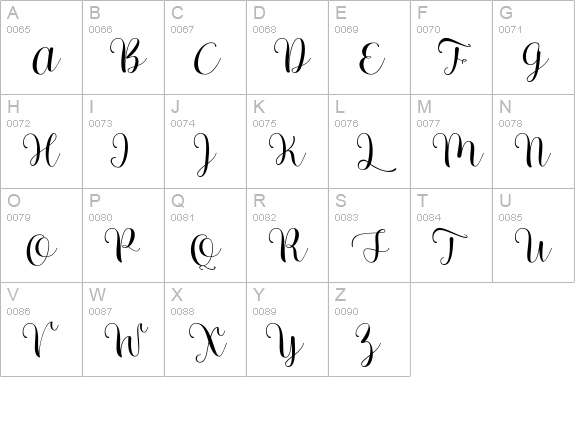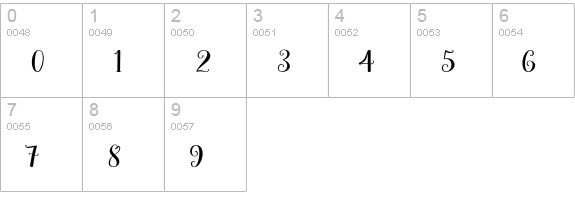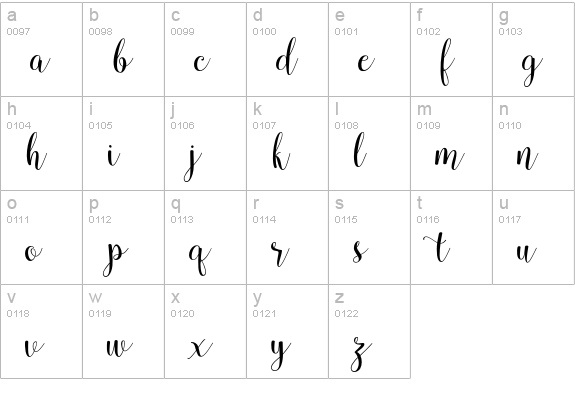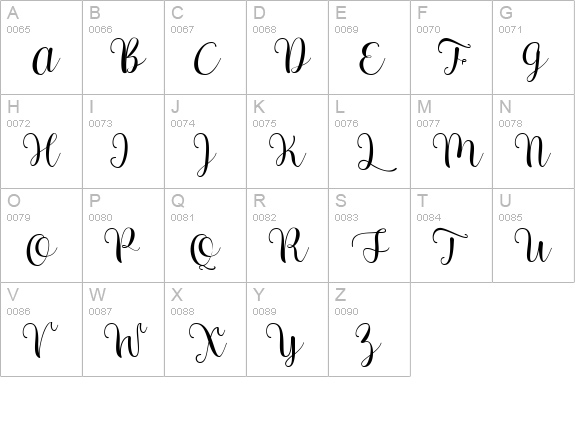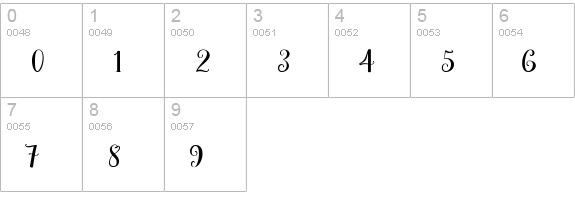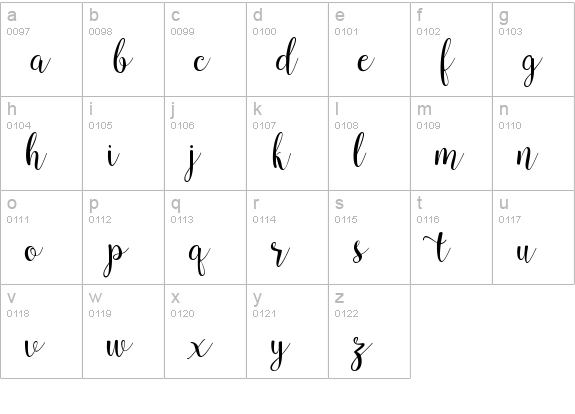
Pradyse Font Details
Pradyse font is a versatile and modern typeface that combines elegance with a touch of playfulness. Its sleek lines and sophisticated curves make it perfect for a wide range of design projects, from branding to editorial design. With a wide range of weights and styles, Pradyse offers endless possibilities for creative expression. What sets Pradyse font apart is not only its aesthetic appeal but also its accessibility. This stunning font is available for free download at FontsMarket.com, making it easily accessible to designers and creatives looking to elevate their work with a touch of sophistication. Whether you're working on a logo, a website design, or a print publication, Pradyse font is sure to make a lasting impression. So why wait? Download Pradyse font today and take your designs to the next level.